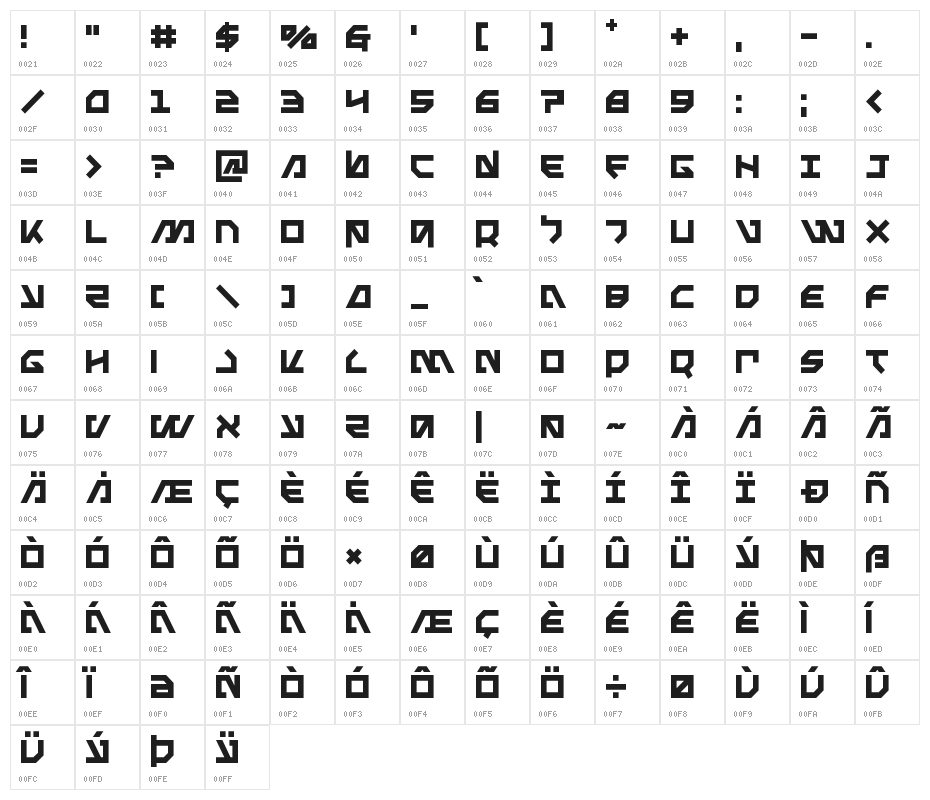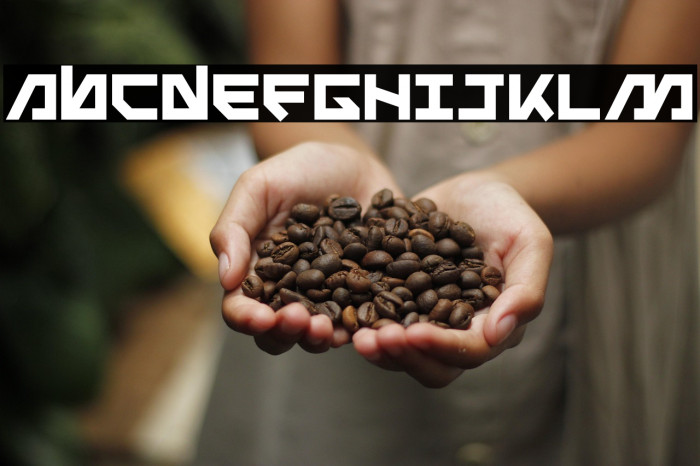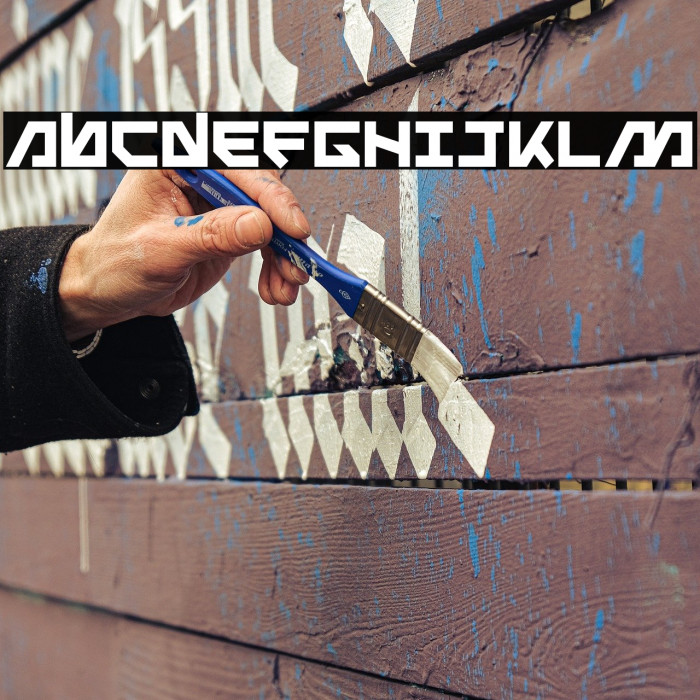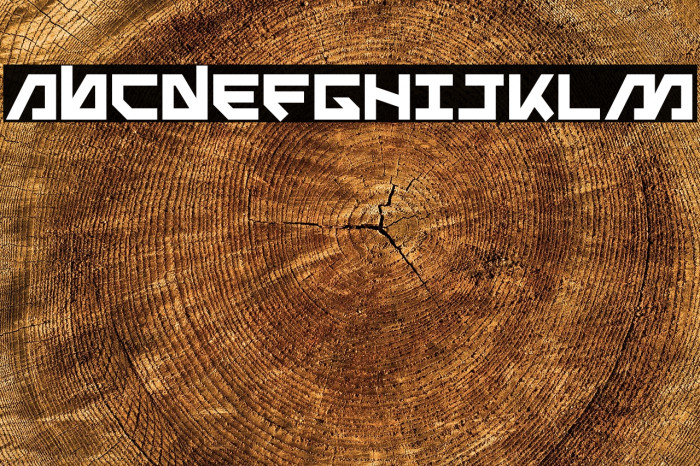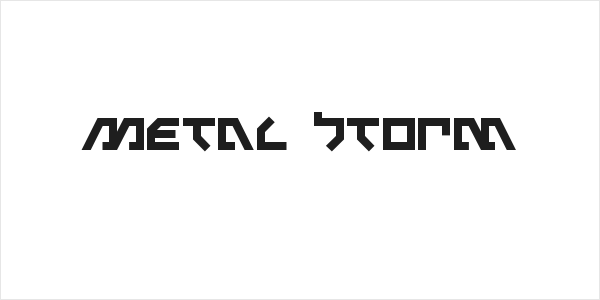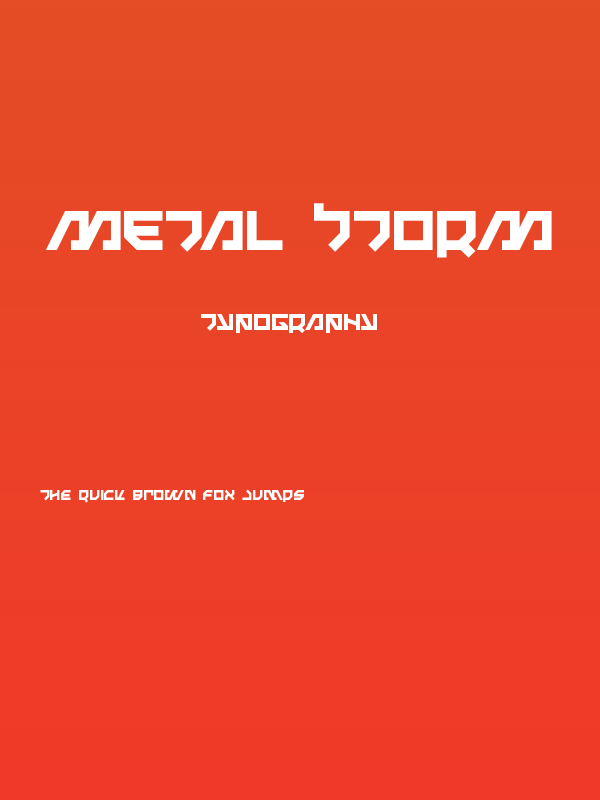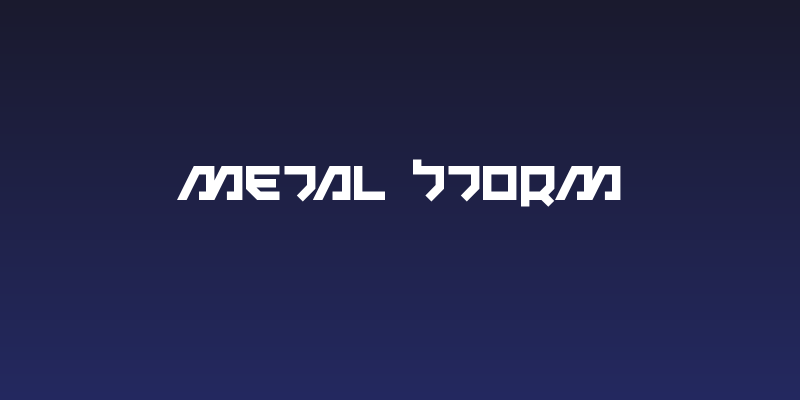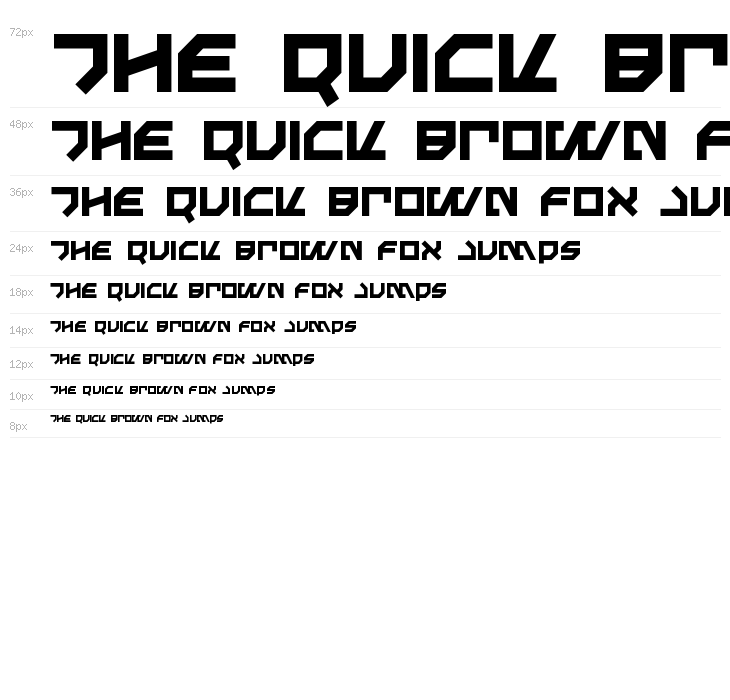
Metal Storm Font
Metal Storm Description
This font features a bold, angular design with a futuristic and industrial feel. The characters are constructed with sharp edges and geometric shapes, giving it a strong and impactful appearance. The uppercase and lowercase letters maintain a consistent style, with a uniform height and width that contributes to its cohesive look. The numbers and special characters follow the same design principles, ensuring a seamless integration across different text elements. This font is ideal for projects that require a modern and edgy aesthetic, such as technology-related branding, video game titles, or sci-fi themed posters.